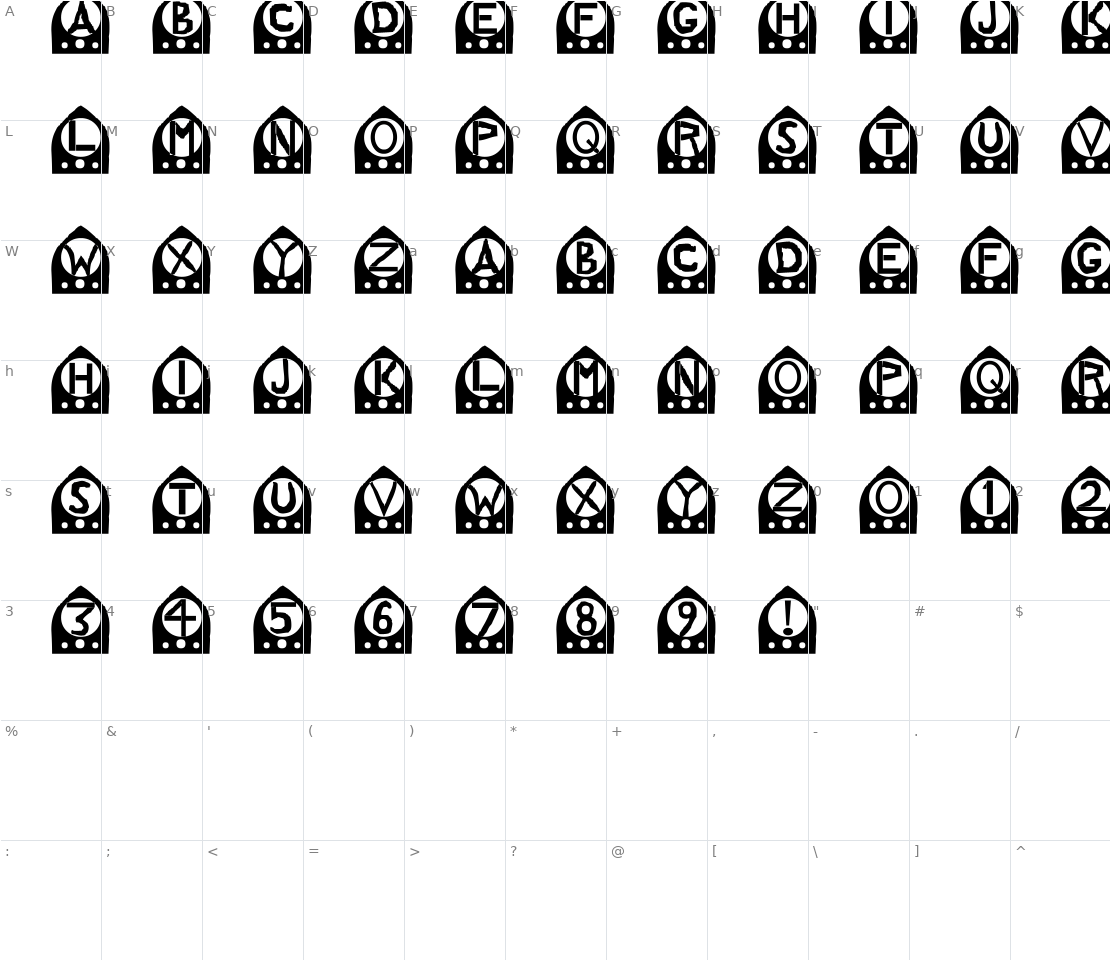
Old Time Radio
Old Time Radio is a novelty display font from wa2ise's TTF Fonts that trades traditional letterforms for vintage radio-themed decorative elements and icons. It's the kind of quirky, single-purpose font that exists for a very specific mood, evoking the golden age of broadcast with a retro charm that works on themed posters, event materials, or nostalgic design pieces where illustration and type blur together.